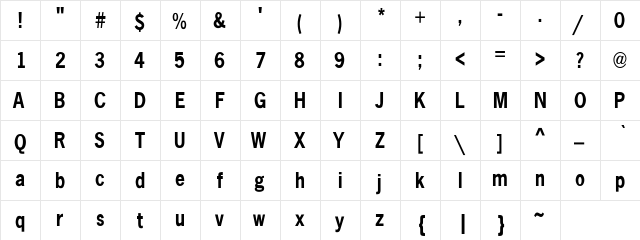
NewsGothicCnd-B Regular Font Preview
NewsGothicCnd-B Regular
NewsGothicCnd-B Regular Font Details
Design Context for NewsGothicCnd-B Typeface
NewsGothicCnd-B has the quiet confidence of well-executed sans-serif typography: versatile, unobtrusive, and dependable at any size.
Font Pairing: Works well alongside a characterful serif or display font that can carry the expressive load while NewsGothicCnd-B handles the functional copy.
Pro Tip: Pair NewsGothicCnd-B with a display or serif font for headlines — its neutral character makes it an excellent supporting player in complex typographic systems.